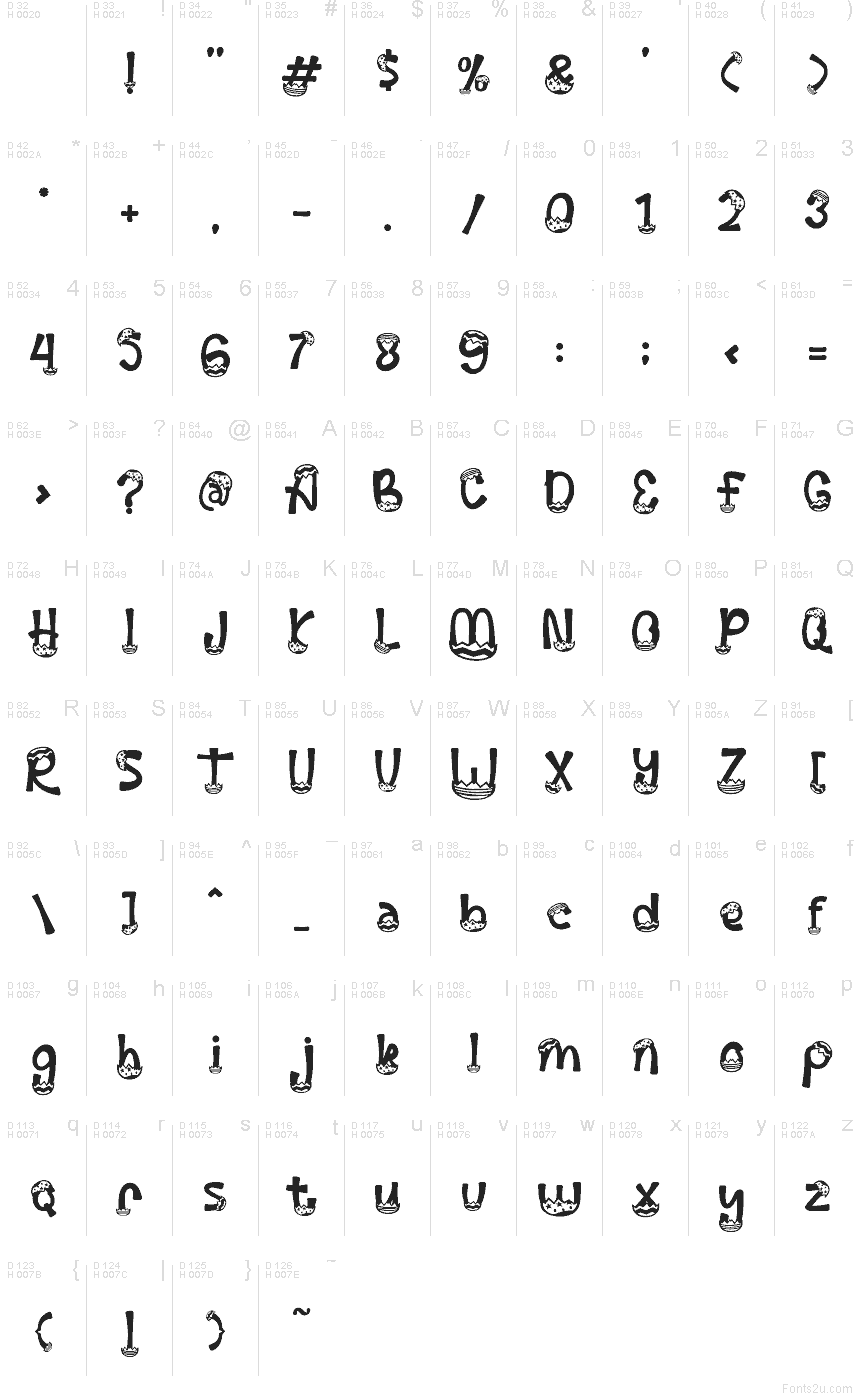
Palm Sunday Egg Crack
Palm Sunday Egg Crack font by Putracetol Studio is a free Easter font with rounded, hand-drawn letters and egg crack accents that sit inside the curves and bowls. The uneven shapes and small decorative details give it a crafted, holiday-craft feel without losing its simple outline.
Palm Sunday Egg Crack works well for Easter cards, spring party invites, bakery labels, seasonal posters, and scrapbook titles because the cracked-egg motif instantly ties the lettering to the holiday. This free font also fits festive packaging, social media graphics, kids' event materials, and decorative logos that need a themed accent rather than plain text.